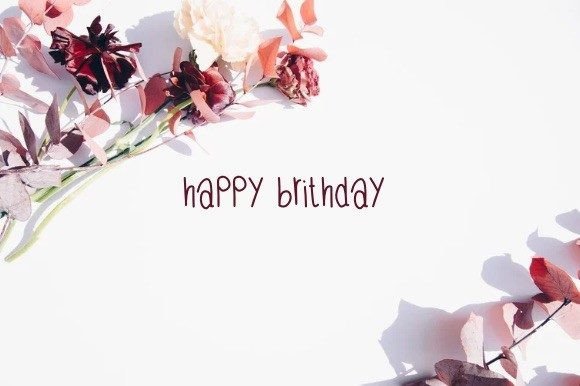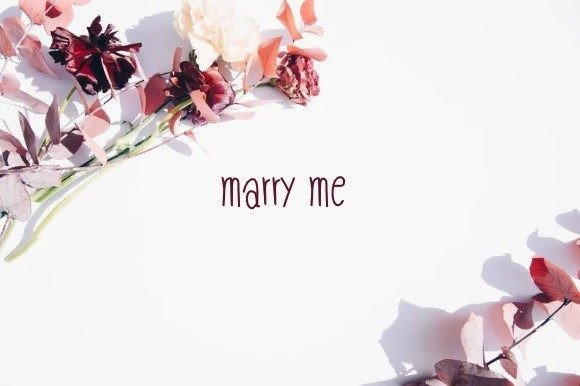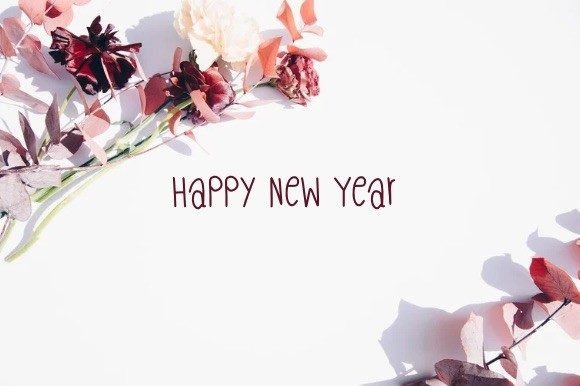
Introduction to Sn Writer Font
As you sit down to plan your wedding, surrounded by love letters and sweet memories, you can’t help but feel the magic in the air. The thought of designing your own wedding invitations, thank you cards, and quotes is both thrilling and overwhelming. But, what if you had the perfect font to make your creative project shine? Enter the charming and elegant Sn Writer Font, a high-quality design resource that will take your handwritten designs to the next level.
As a designer, you know the importance of having the right tools at your disposal. The Sn Writer Font offers a transparent background, making it perfect for creating stunning logos, business cards, and greeting cards. Its free download feature is a bonus, allowing you to experiment with different designs without breaking the bank.
Key Features of Sn Writer Font
- High-quality font design ideal for creative projects, offering a unique and elegant touch.
- Includes a transparent background, allowing for seamless integration into various design elements.
- Designed to be scalable, with a resolution of up to 300 DPI, making it suitable for a wide range of applications.
- Perfect for use in logos, branding materials, and other design elements where a sophisticated and refined look is desired.
Honest Review: Sn Writer Font
I recently stumbled upon the Sn Writer Font, and I’m excited to share my honest thoughts on this design resource. At first glance, I was drawn to its sleek and modern aesthetic, perfect for any creative project.
- The Sn Writer Font is incredibly versatile and can be used for both personal and professional projects.
- The transparent background feature allows for seamless integration with various design elements.
- The font may not be as customizable as some other design resources.
Overall, I’m impressed with the Sn Writer Font. Its high quality and modern design make it a great addition to any design toolkit. While it may have some limitations, it’s an excellent choice for those looking for a reliable and free design resource.
Tips for Getting the Most Out of Sn Writer Font
Common Use Cases for Sn Writer Font
Sn Writer Font is commonly used in a variety of creative projects, including social media graphics, posters, presentations, and documents. Its high-quality design and transparent background make it perfect for any project that requires a professional-looking font. Whether you’re a seasoned designer or just starting out, Sn Writer Font is a valuable design resource that can help you create stunning designs with ease.
Alternatives to Sn Writer Font
Oswald is a high-quality sans-serif font that works well for creative projects that require a clean and modern design. It’s ideal for titles and headings due to its bold and condensed structure. Oswald is a free download and can be used as a design resource for any project that requires a professional and sleek look.
Compared to Sn Writer Font, Oswald has a more modern and sleek feel, making it a great alternative for designers who want to create a contemporary look for their project. However, Oswald may not be as versatile as Sn Writer Font when it comes to creating a transparent background or a minimalist design.